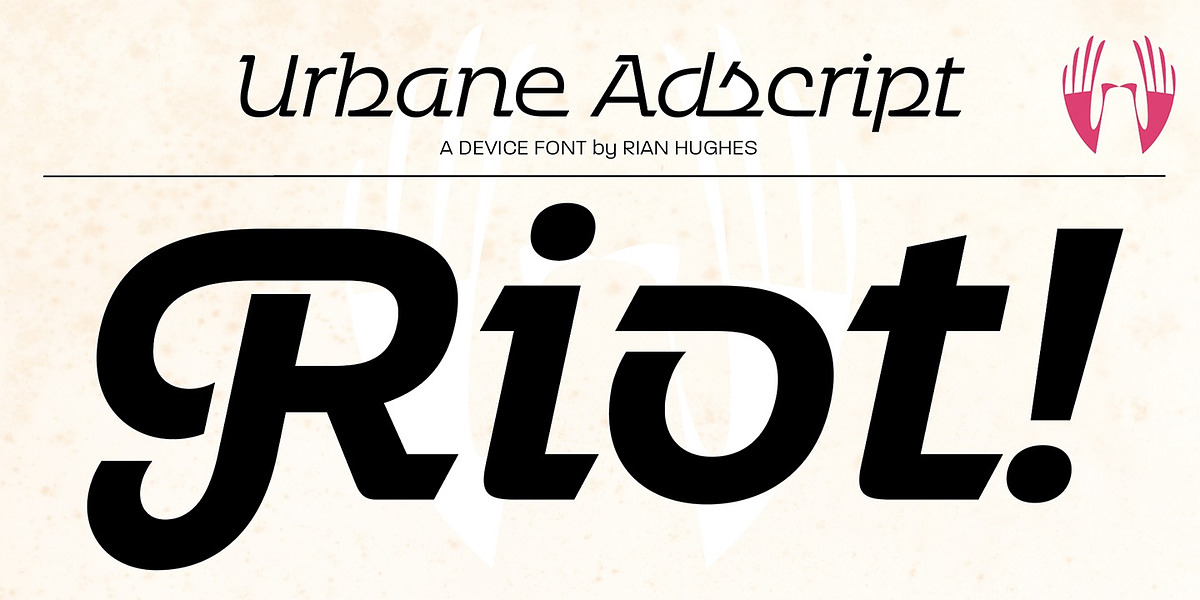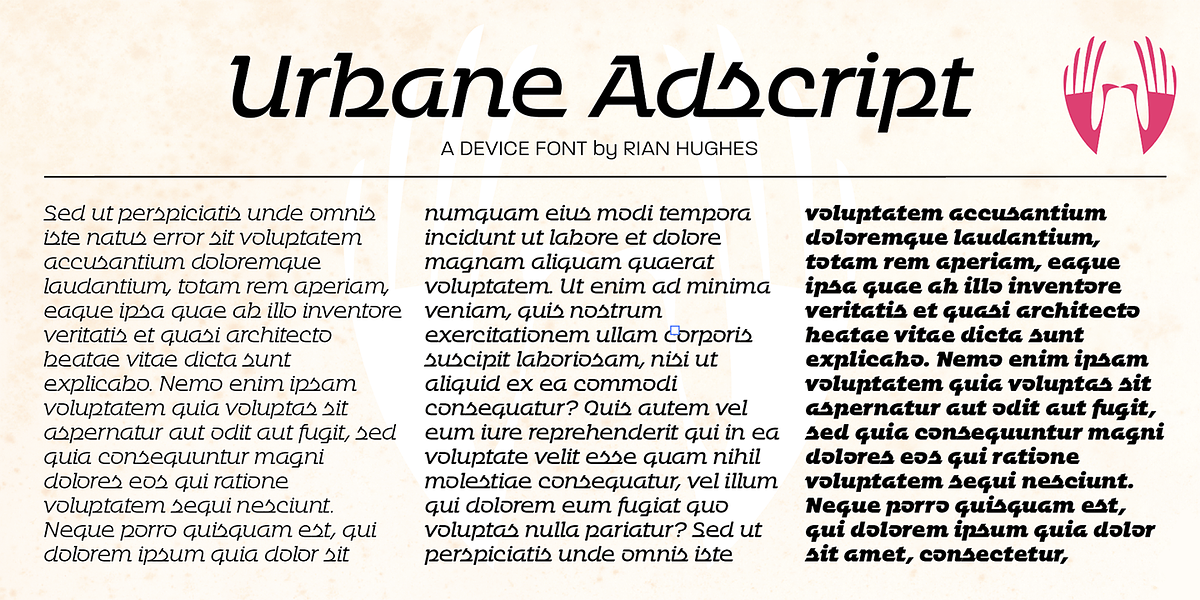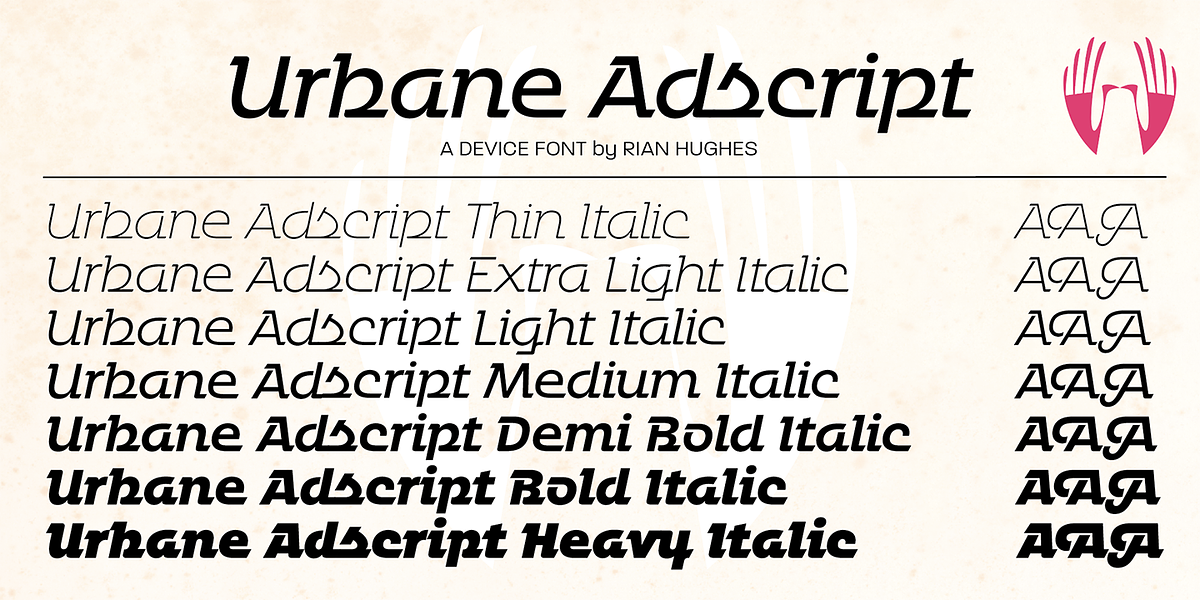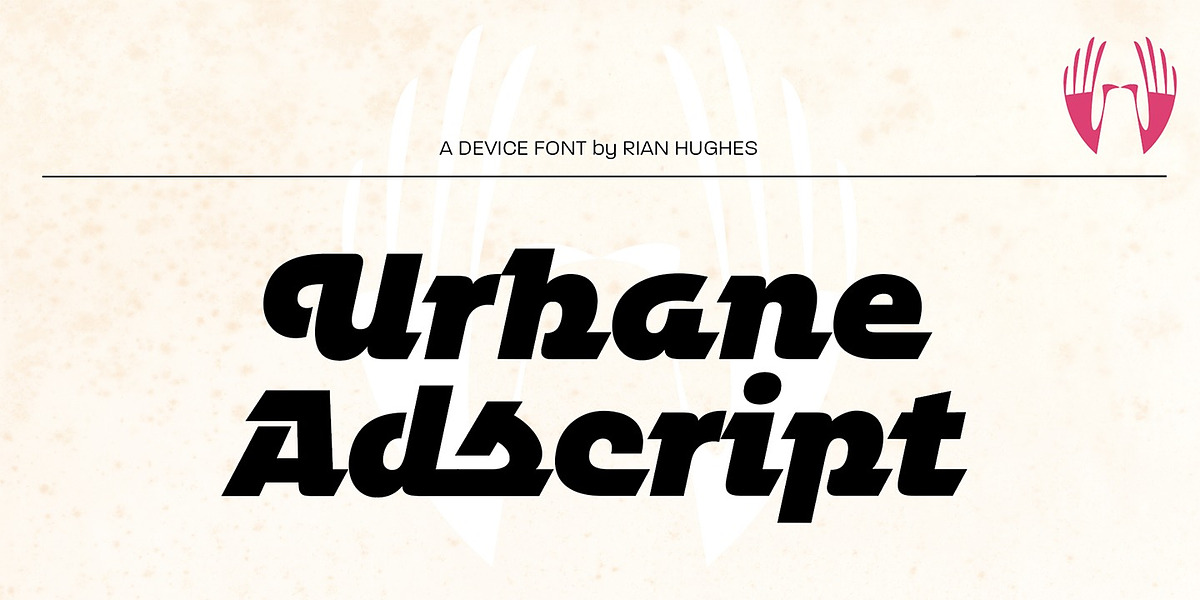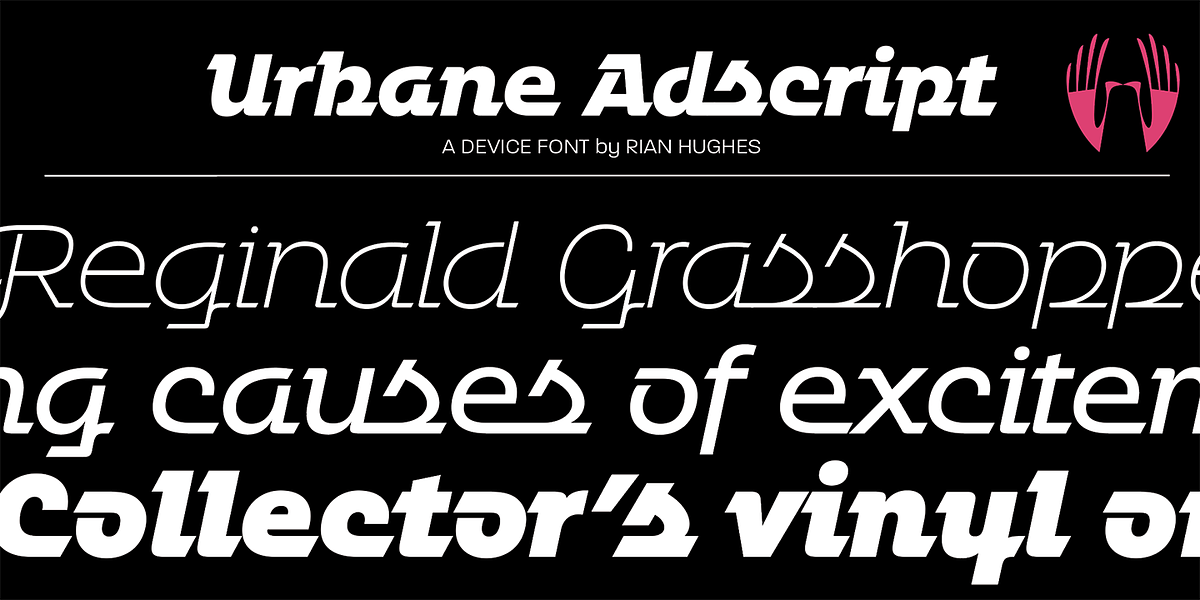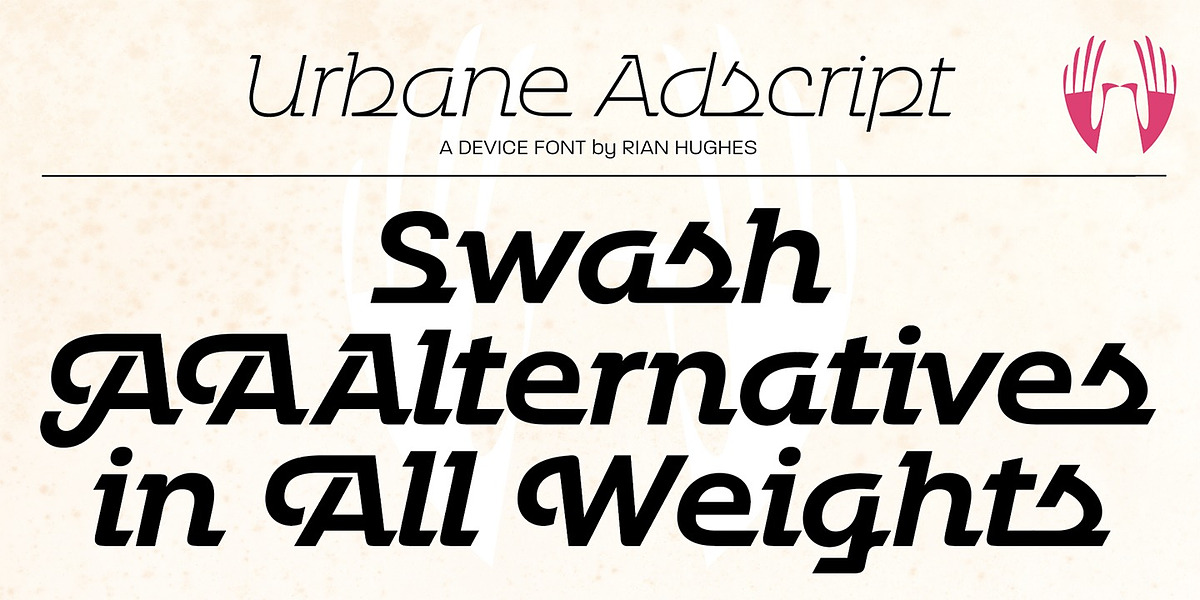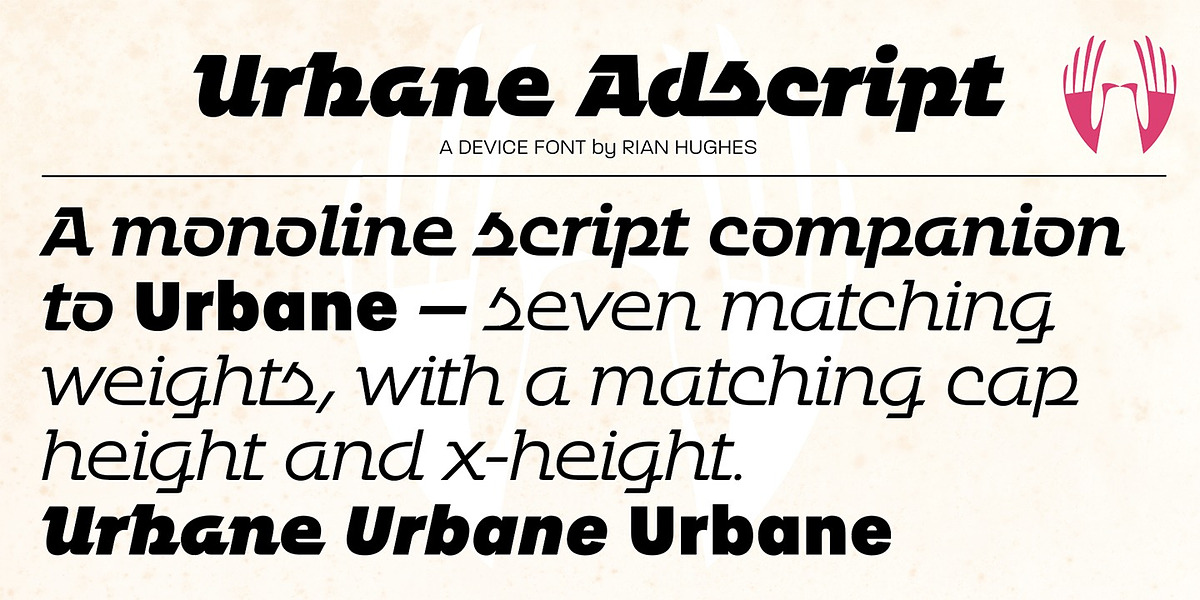
Urbane Adscript
Urbane Adscript is a monoline script font designed to complement the Urbane typeface family. It shares the same weights and x-height as Urbane, allowing for harmonious use together. The standout feature of Urbane Adscript is its swash capitals, which can be toggled on or off within design software like Adobe Illustrator, offering both decorative and less ornate options.